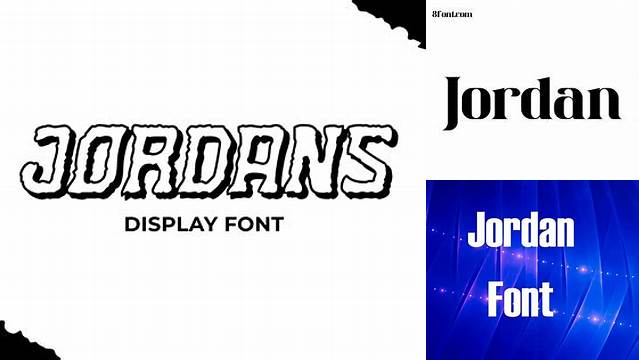
History of the Jordan Font
The Jordan font is deeply rooted in the history of the iconic basketball player Michael Jordan and his association with the Nike brand. Understanding the origins and evolution of this font provides valuable context for its current usage and significance. This font is not just a typeface; it's a symbol of excellence, athleticism, and cultural impact. When used appropriately, it can add a touch of authenticity and nostalgia to various design projects. To appreciate the Jordan font fully, it's crucial to delve into the historical backdrop that has shaped its identity and made it a recognizable emblem in sports and design.
The Nike Connection
The relationship between Michael Jordan and Nike is perhaps one of the most successful and enduring partnerships in sports history. When Jordan first signed with Nike in 1984, it marked the beginning of the Air Jordan line, a series of basketball shoes and apparel that would revolutionize the industry. The Jordan font became an integral part of the Air Jordan branding, appearing on shoes, clothing, and promotional materials. This association with Nike cemented the font's status as a symbol of high performance and style. The font's design often reflected the cutting-edge technology and innovative spirit of the Air Jordan products, further enhancing its appeal to athletes and fans alike. The Nike connection not only elevated the Jordan brand but also popularized the font, making it a sought-after element for designers and enthusiasts.
Evolution of the Font Over the Years
Over the years, the Jordan font has seen several iterations and variations, each reflecting the changing trends and design aesthetics of the time. From its initial appearance on early Air Jordan models to its modern adaptations, the font has consistently maintained a sense of dynamism and forward motion. Early versions of the font often featured a bold, blocky design, conveying strength and power. As the Air Jordan line evolved, the font also evolved, becoming more streamlined and sophisticated. Modern versions of the font incorporate subtle details and refinements that enhance its readability and visual appeal. These changes demonstrate the ongoing effort to keep the Jordan font relevant and contemporary while still honoring its rich history. The evolution of the font showcases its adaptability and enduring relevance in the world of sports and design.
Identifying the Authentic Jordan Font
Identifying the authentic Jordan font can be tricky since there are many imitations and fan-made versions floating around. Knowing the key characteristics and details of the original font will help you distinguish it from the fakes. This ensures that you're using the right font for your projects, preserving the integrity and authenticity of your design. Pay close attention to the letterforms, spacing, and overall appearance to spot the genuine article.
Key Characteristics to Look For
When trying to identify the authentic Jordan font, there are several key characteristics to look for. The original font typically features a bold, sans-serif design with clean lines and a strong presence. Pay attention to the unique shapes of the letters, particularly the curves and angles. The spacing between letters should be consistent and balanced, contributing to the font's overall readability. Also, consider the weight of the font; the authentic version usually has a substantial weight that conveys strength and confidence. By examining these details closely, you can better determine whether the font you're looking at is the real deal.
Common Mistakes in Imitation Fonts
Imitation Jordan fonts often fall short in several areas, making them easier to spot if you know what to look for. Common mistakes include inconsistent letter spacing, poorly defined curves, and incorrect font weight. Some imitation fonts may also have distorted proportions or lack the sharpness of the original. Additionally, the overall appearance of the imitation font may seem less polished or refined compared to the authentic version. By being aware of these common mistakes, you can avoid using inferior fonts in your projects and ensure that your designs maintain a high level of quality and authenticity. Spotting these errors requires a keen eye and attention to detail, but it's worth the effort to preserve the integrity of your work.
Conclusion: Mastering the Jordan Font
So there you have it, folks! Everything you need to know about the Jordan font free download, from its origins and identifying the real deal to using it effectively in your designs. Remember, finding the authentic Jordan font can be tricky, so always stick to safe and legitimate sources. And if you can't find the exact font, there are plenty of awesome alternatives that capture the same sporty vibe. Happy designing, and may the Jordan font bring a touch of legendary style to all your projects!